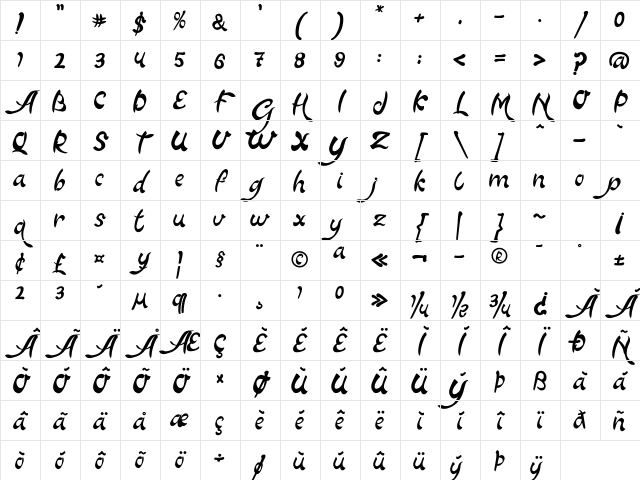
Gathira Regular
Foundry: Hendra Pratama
Designer: Hendra Pratama
Design Context for Gathira
Gathira is a composed and adaptable typeface that performs quietly and consistently across a wide range of design contexts.